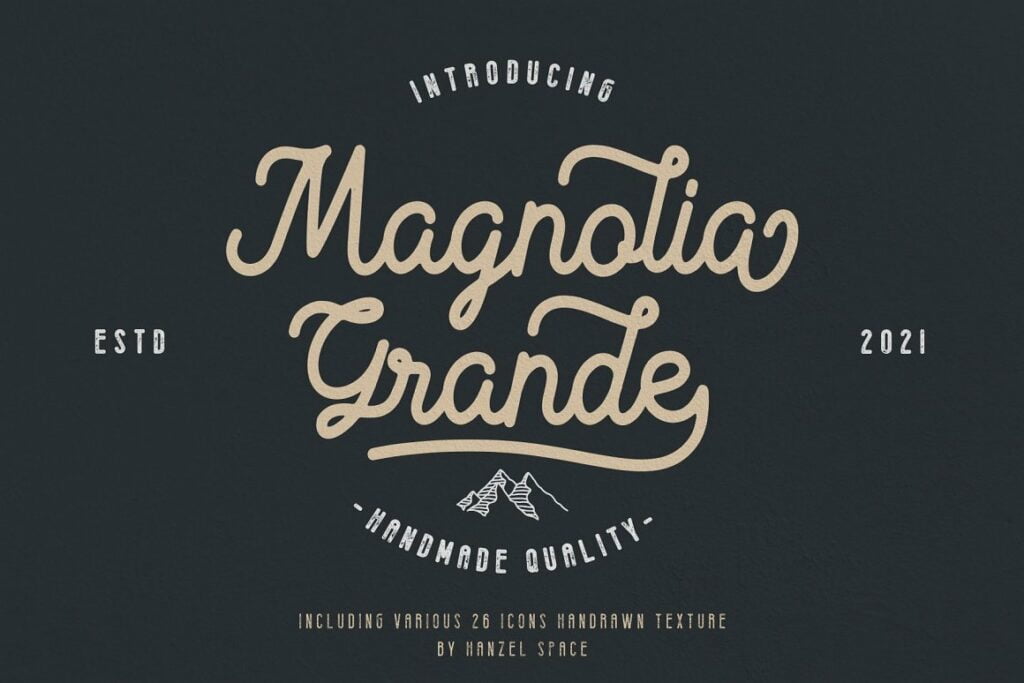
Magnolia Grande Font
Magnolia Grande is a beautiful, well balanced and vintage styled script font. It is defined by smooth curves and is perfect for fashion branding or editorial designs. Add it confidently to your projects, and you will love the results.
Magnolia Grande Script Font